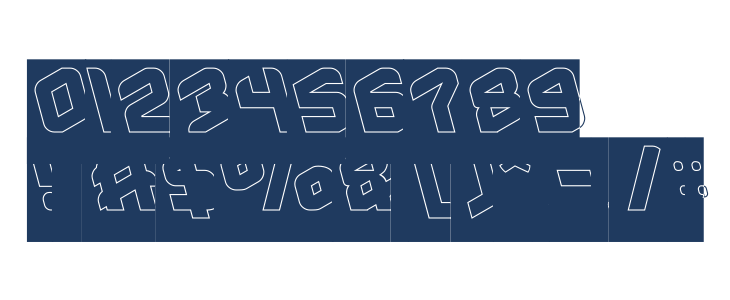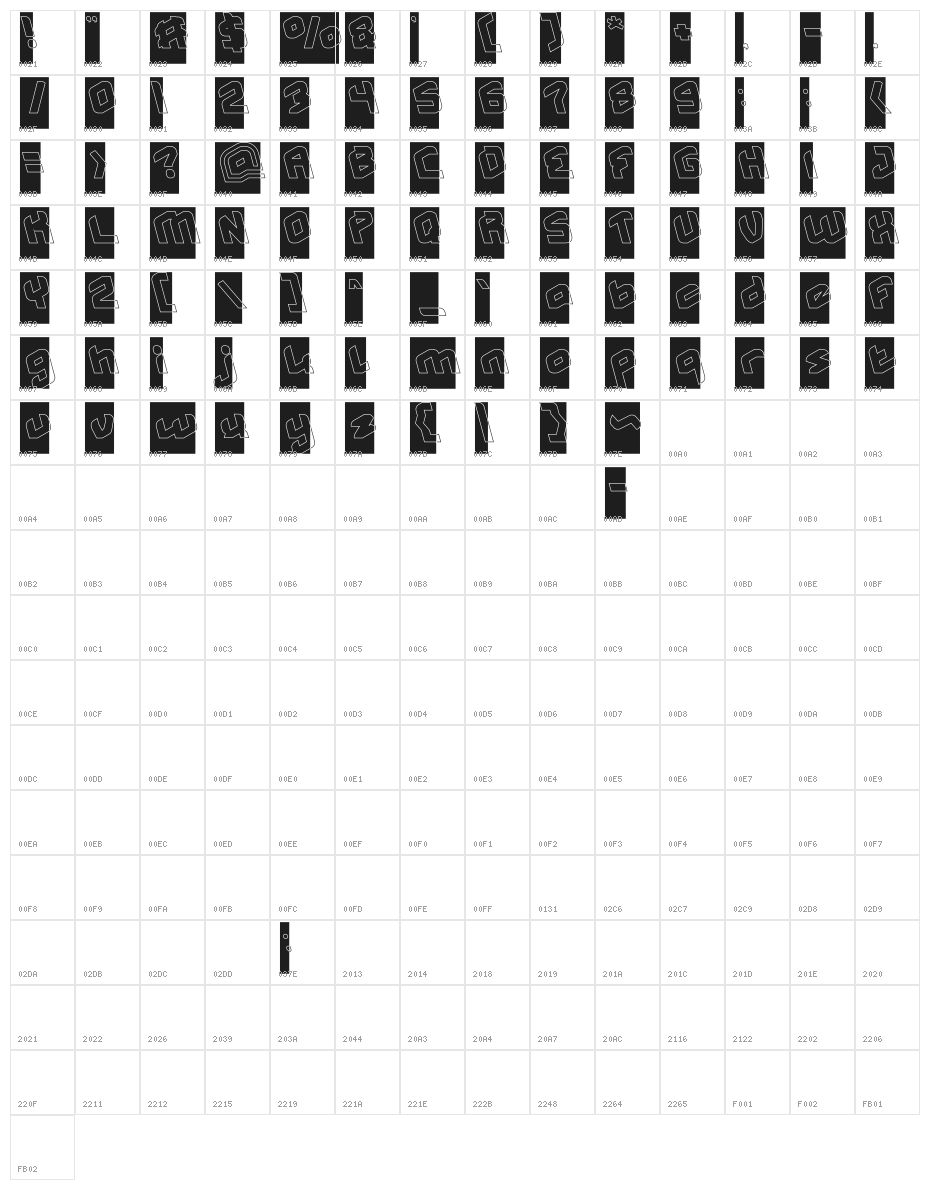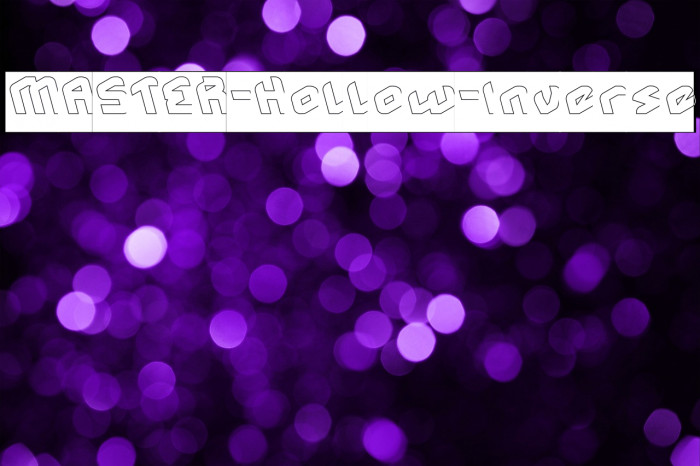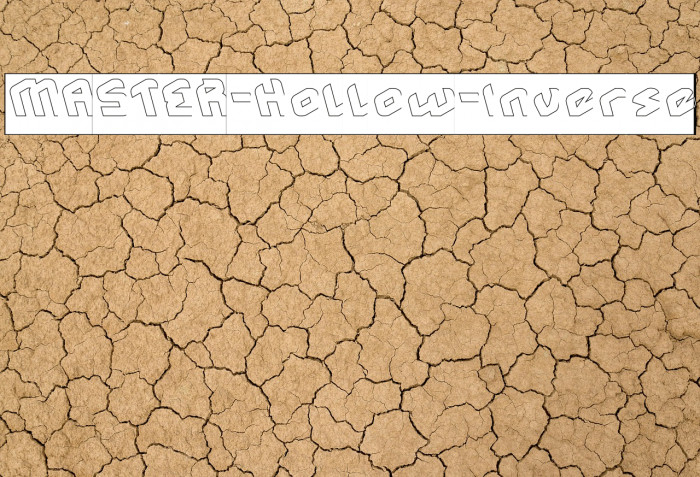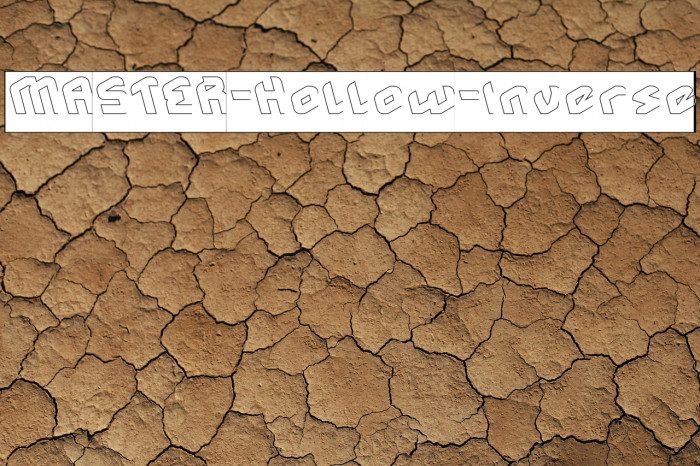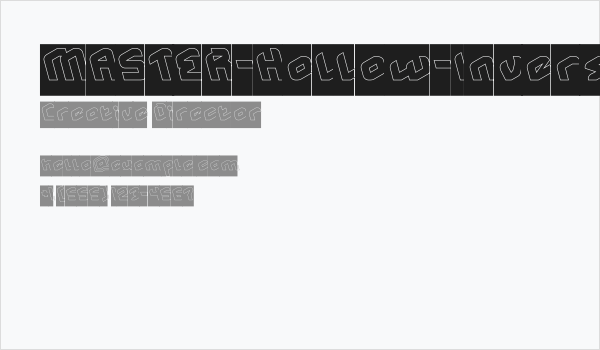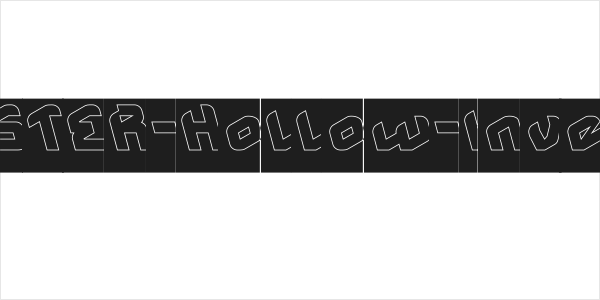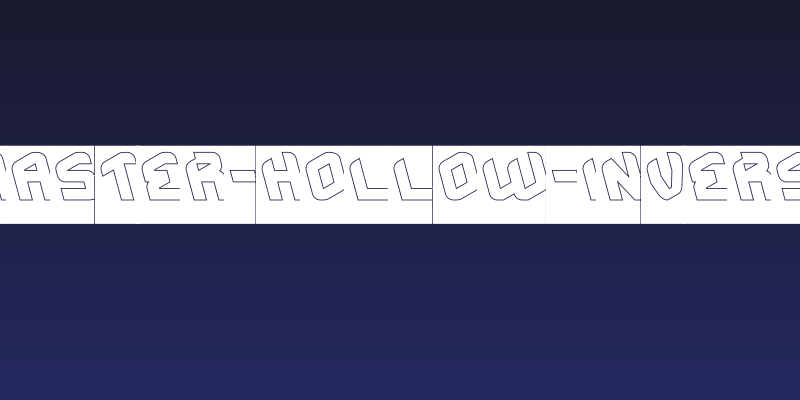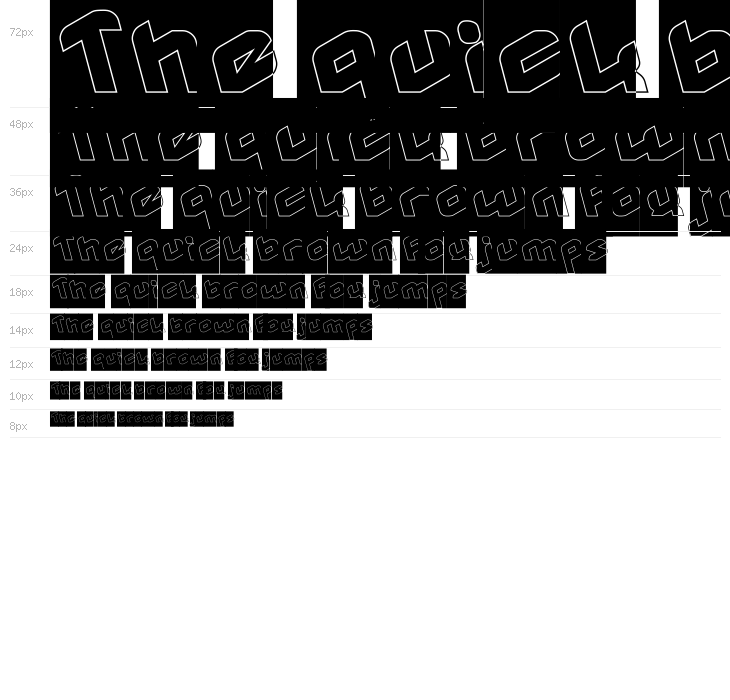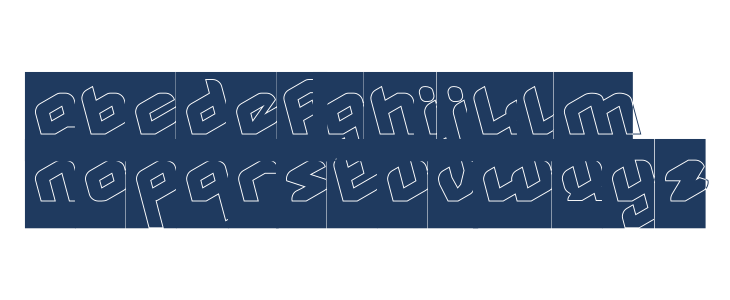
MASTER-Hollow-Inverse Font
MASTER-Hollow-Inverse Description
This font features a unique hollow design with inverse styling, where the characters are outlined with a bold, continuous line, creating a striking visual effect. The uppercase and lowercase letters maintain a consistent geometric structure, giving the font a modern and edgy appearance. The numerals and special characters follow the same design principles, ensuring uniformity across all glyphs. The font's hollow nature makes it ideal for creating impactful headlines or titles where the background can play a role in the overall design. Its distinct style is both eye-catching and versatile, suitable for various creative applications.